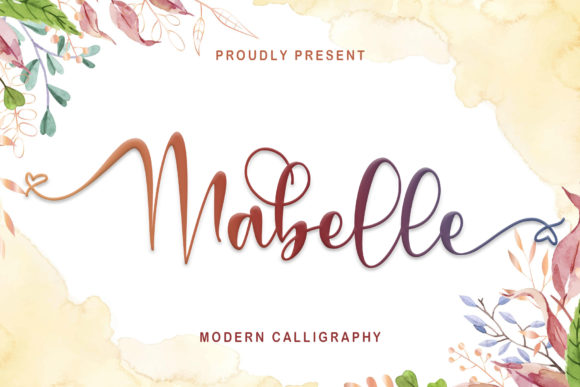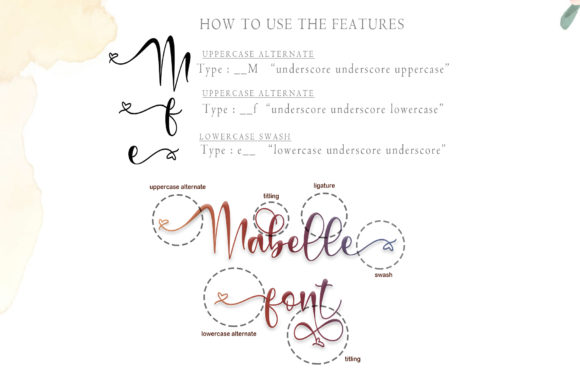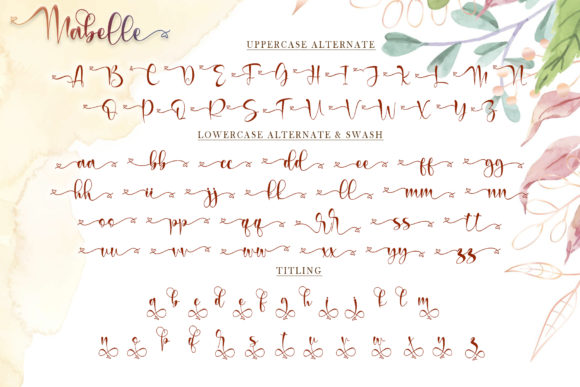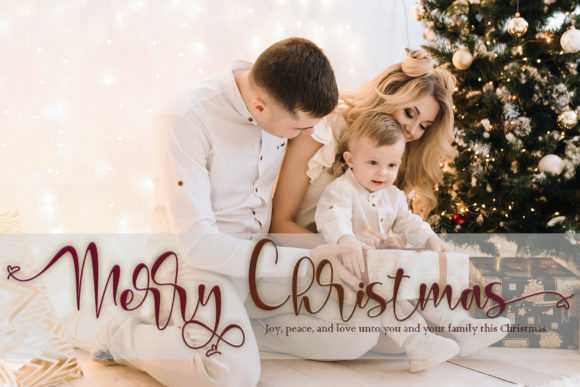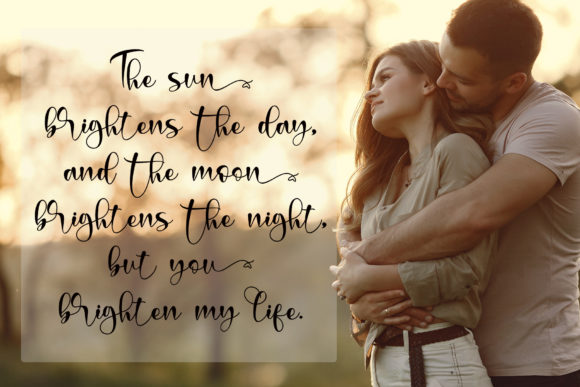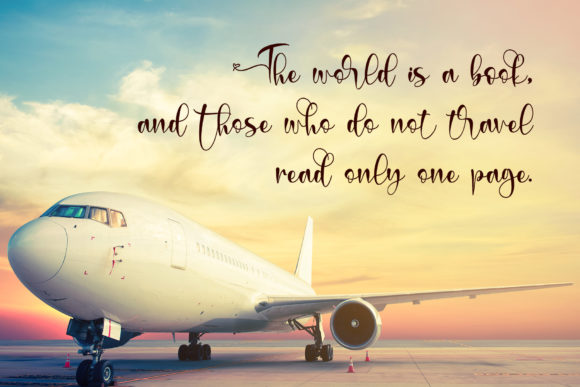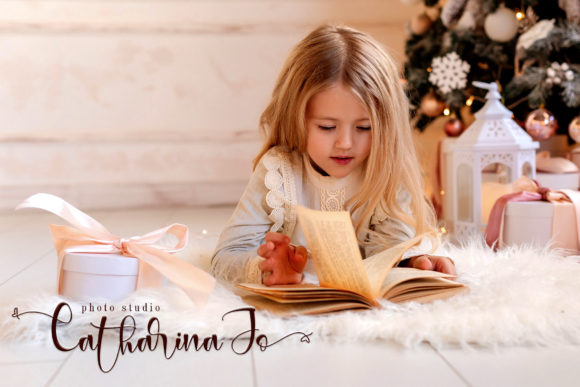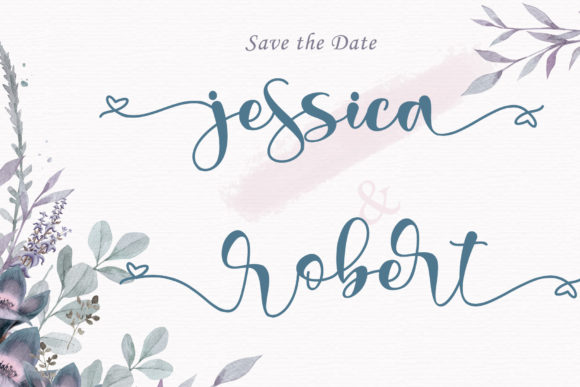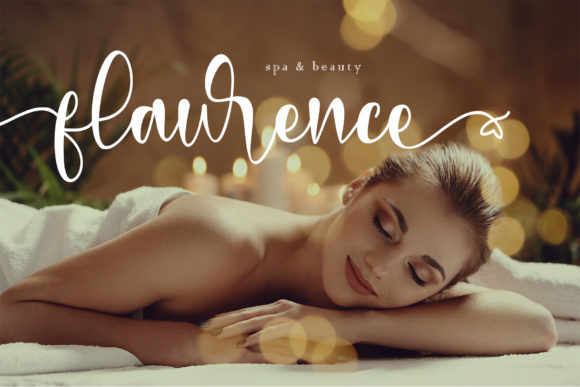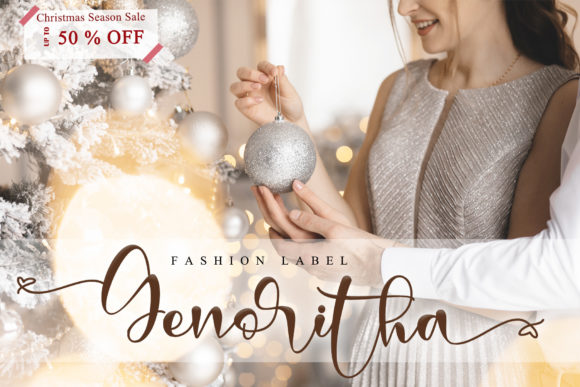
Mabelle Font
About Mabelle Font
Mabelle is a romantic and festive handwritten font, featuring beautiful hearts as ornaments. It is ideal for holiday-themed greeting cards, weddings, and any crafting projects that require a warm touch. This font is PUA encoded which means you can access all of the glyphs and swashes with ease!